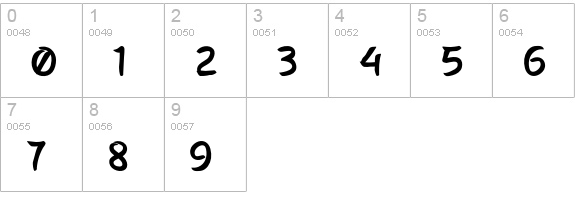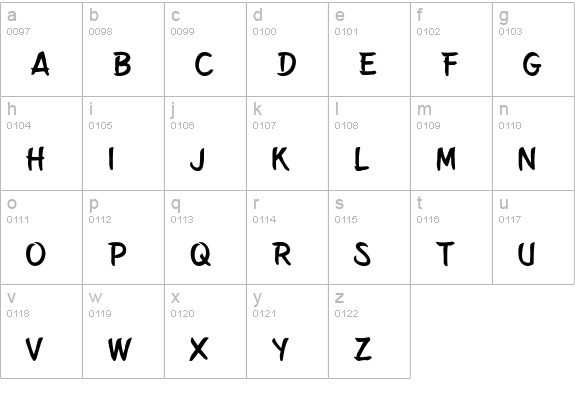
Belepotan is a free for personal use font in the Script > Graffiti category. It has been downloaded 33 times and is available for Windows, Mac and Linux.
Belepotan font is a stunning display typeface that exudes creativity and charm. With its unique blend of elegant curves and playful strokes, this font is perfect for adding a touch of whimsy to any design project. Whether you're working on a logo, poster, or website, Belepotan font will surely catch the eye and leave a lasting impression. One of the best things about Belepotan font is that it is completely free. That's right, you can download this fantastic font at no cost at all. It's available for download at FontsMarket.com, a trusted source for high-quality fonts. So not only do you get a beautiful font, but you also get it for free. The versatility of Belepotan font is truly remarkable. It can be used in a variety of contexts, from formal to informal, and everything in between. Its clean and legible design ensures that your message will be conveyed clearly and effectively. What sets Belepotan font apart from other fonts is its attention to detail. Each letter has been meticulously crafted to perfection, resulting in a font that is both visually pleasing and highly readable. The characters flow seamlessly together, creating a harmonious and cohesive look. Whether you're a professional designer or just someone who loves playing around with fonts, Belepotan font is a must-have. Its free availability makes it accessible to everyone, ensuring that anyone can add a touch of creativity to their projects. So why wait? Head over to FontsMarket.com and download Belepotan font today. It's time to unleash your creativity and make a statement with this stunning font.